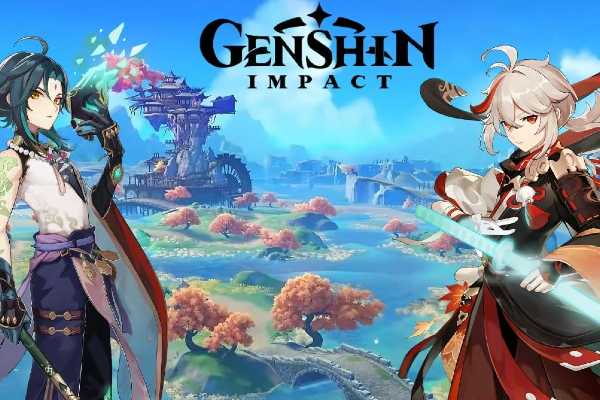
Genshin Impact is a video game that was released in 2020 by miHoYo and co-created by Cai Haoyu. It takes players on an epic quest across the magical realm of Teyvat to find their lost sibling. The open-world action RPG explores themes of adventure and elemental magic, featuring a cast of diverse characters and extensive lore. A fun fact that I wasn't aware of until just now, is that the game garnered immense popularity during it's initial release, boasting millions of downloads within its first week of launch alone.
For its logo and in-game text, Genshin Impact employs a modified version of Hanyi WenHei 85W Extra Bold, designed and created by miHoYo from the original typeface by Hanyi Fonts. With its extra-bold weight and tight kerning, the typeface exudes a sense of gravity and formality, aligning perfectly with the game's fantastical and epic ambiance. The font doesn't delve into cursive or casual styles but remains assertive and straightforward, contributing to the game's narrative strength and visual coherence. Also included below is typeface by the name of Genshin Impact DRIP, which is also a very close replica of the original Genshin Impact font. If you are a designer eager to replicate the Genshin Impact aesthetic, you can use this font in your preferred graphic design application (photoshop, illustrator, etc) to create your own unique graphics and images.